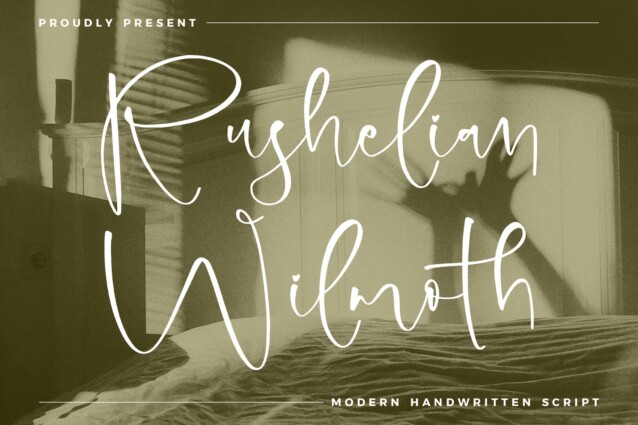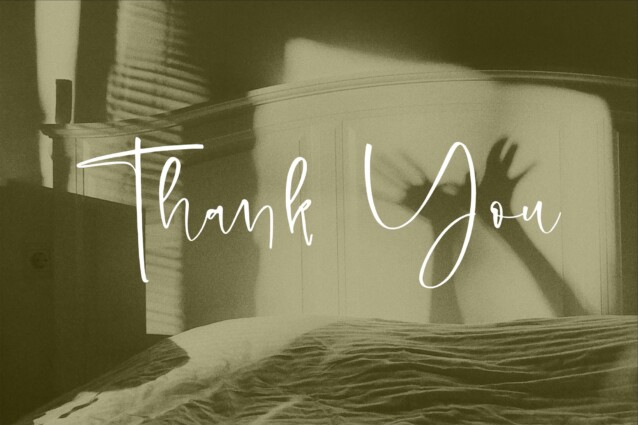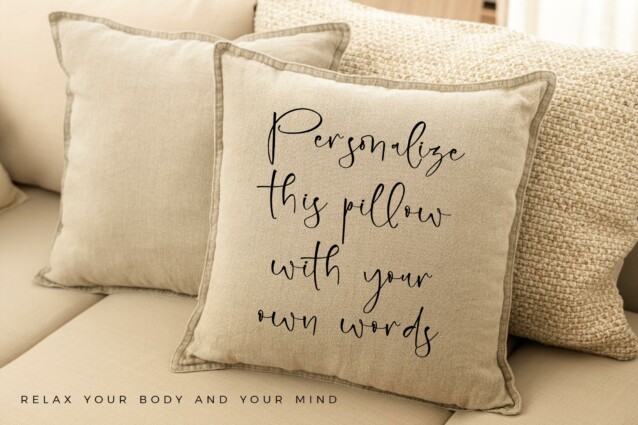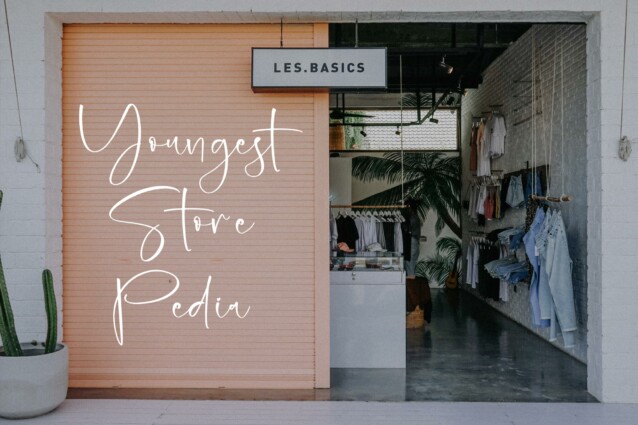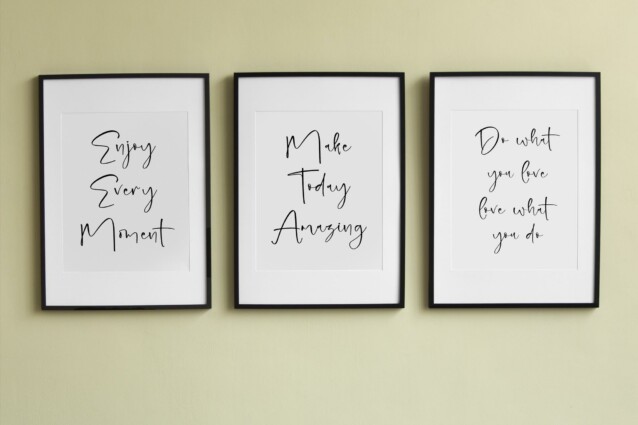
Rushelian Wilmoth Font
Rushelian Wilmoth Font is a modern handwritten script font, suitable for any projects such as: logos, branding projects, homeware designs, product packaging, mugs, quotes, posters, shopping bags, t-shirts, book covers, name card, invitation cards, greeting cards, label, photography, watermark, special events, and all your other lovely projects that need a beautiful script taste.